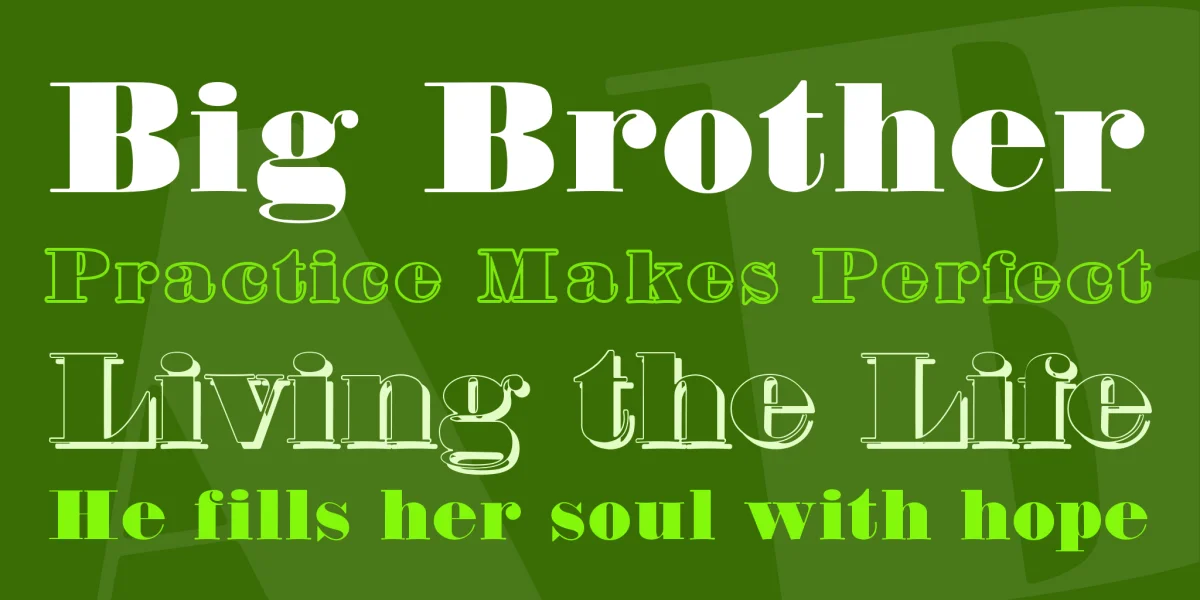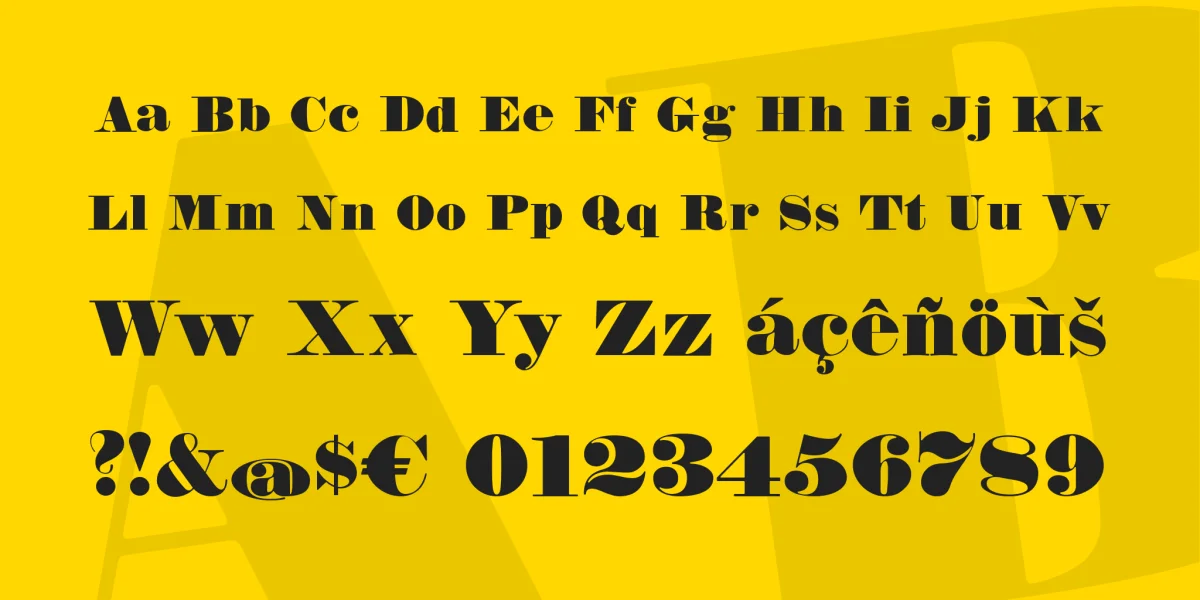
I received from a nice man with two folders called Typoskizzenkarten a known type foundry in late 2012. In total, over 70 complete sets of figures today still known largely writings of this company. This writing, the fat Antiqua is hereby the first font that I have digitized after this card. Here I have deliberately small insecurities and mistakes of hand cut matrices included in the fund, rather than the idealized trace header. Finally, I would like to reflect the properties of the publication of the 1950 years in this font. I have added the font to a complete Latin character set. So have fun with the fat Bauer's Rare!
Further such writings will follow, because these folders that I have completely only son are a real treasure, and yet so many font is waiting to be digitized by me. A second is under way, the broken scripts.
Also this font belongs to the almost 1200 characters developed with best Schriftartern my offer, it covers almost all the Latin extensions and the complete Cyrillic writing system with all its extensions.